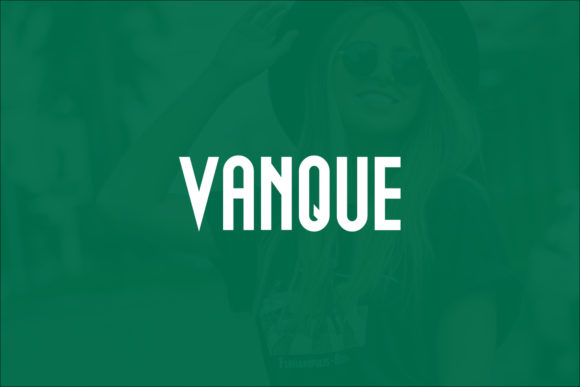
Dive into the captivating world of Vanque Font, a masterpiece from BeeType, designed to elevate your visual creations to new heights. This stunning display font exudes a bold and sharp personality, ready to inject a dose of sophistication and style into your designs. Let Vanque be your creative companion, guiding you through a universe of endless possibilities.
Unleash your imagination and let Vanque's clean lines and striking presence take center stage. Its sharp edges and geometric structure command attention, making it the perfect choice for headlines, posters, logos, and branding projects. Vanque's versatility knows no bounds, lending its charm to invitations, social media graphics, and even website designs.
With Vanque Font, you'll discover a font that not only captivates the eye but also captivates the heart. Its timeless aesthetic transcends trends, ensuring that your designs remain relevant and captivating for years to come. Experience the magic of Vanque and let your creativity flourish like never before.
Harness the power of Vanque Font today and unlock a world of design possibilities. Transform your creative vision into a breathtaking reality with this exceptional font that will leave a lasting impression on your audience. Embrace the brilliance of Vanque and unleash your design potential!